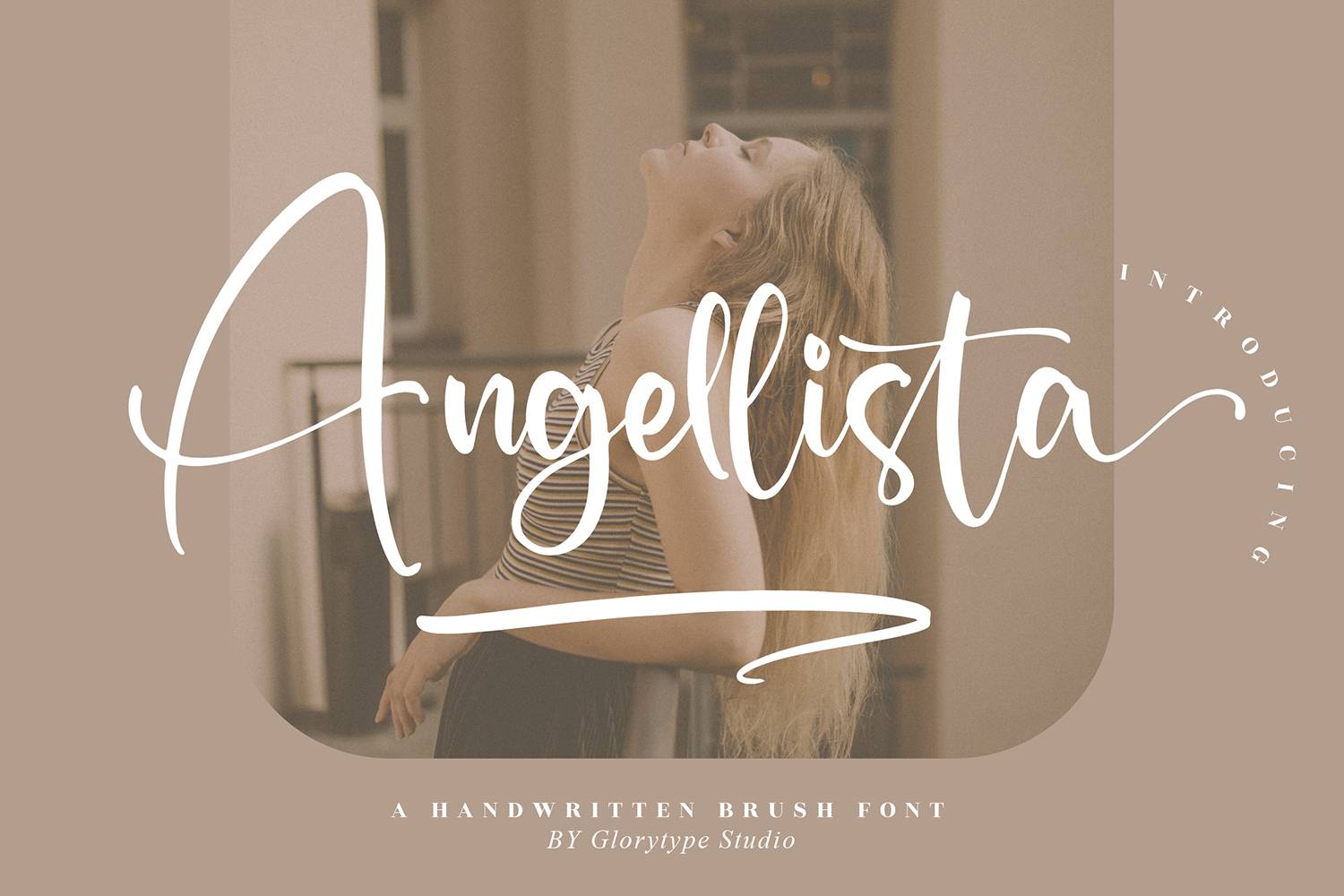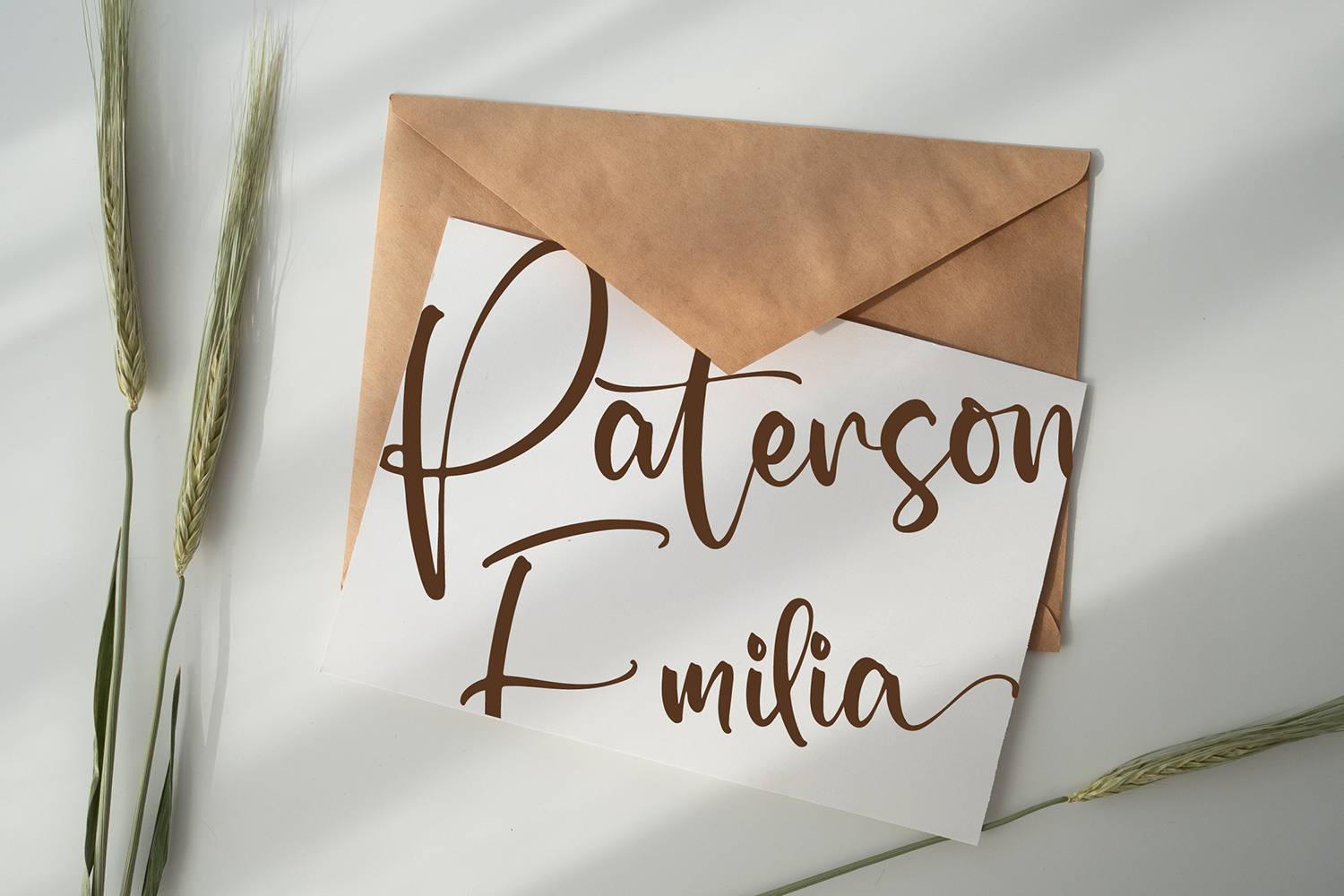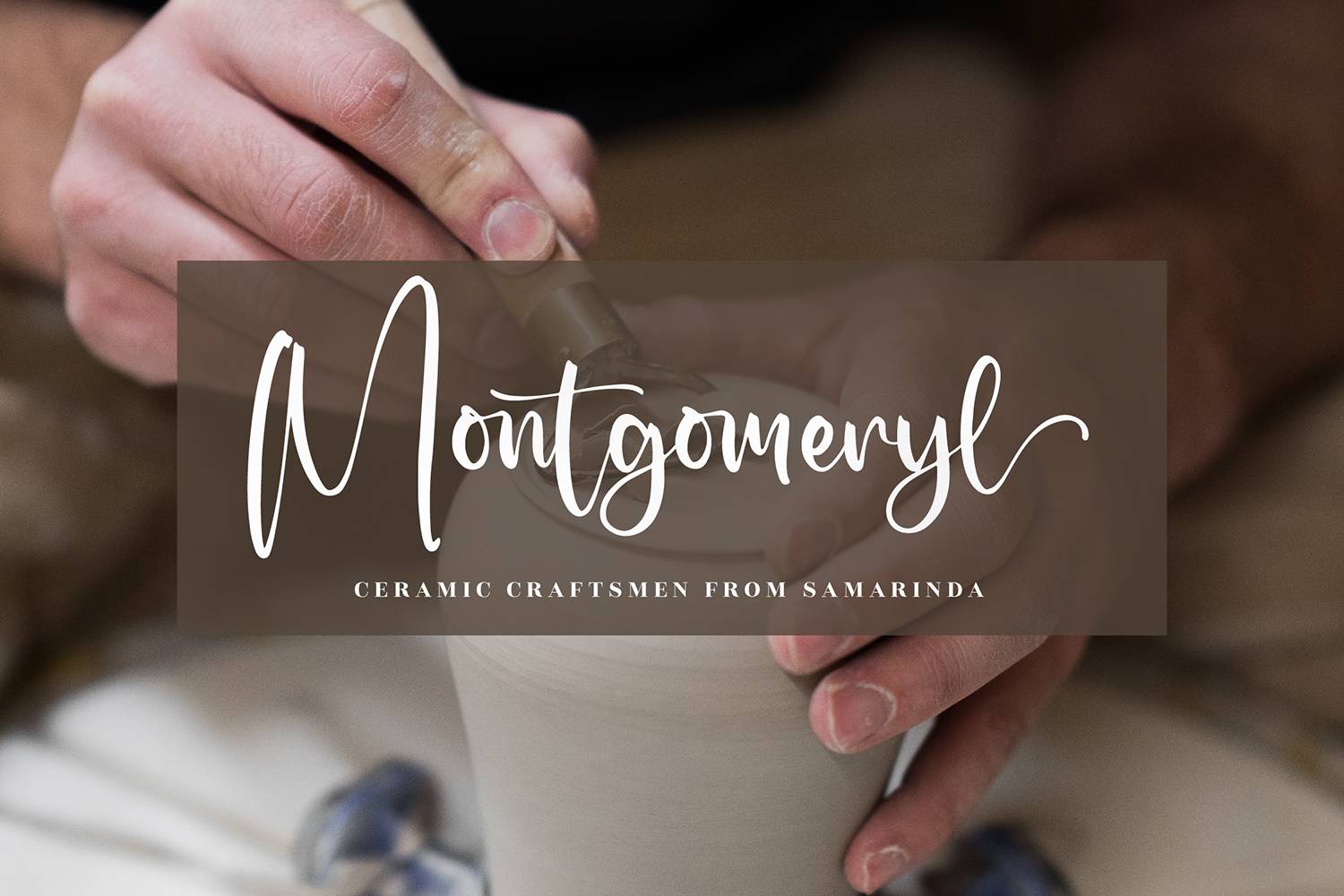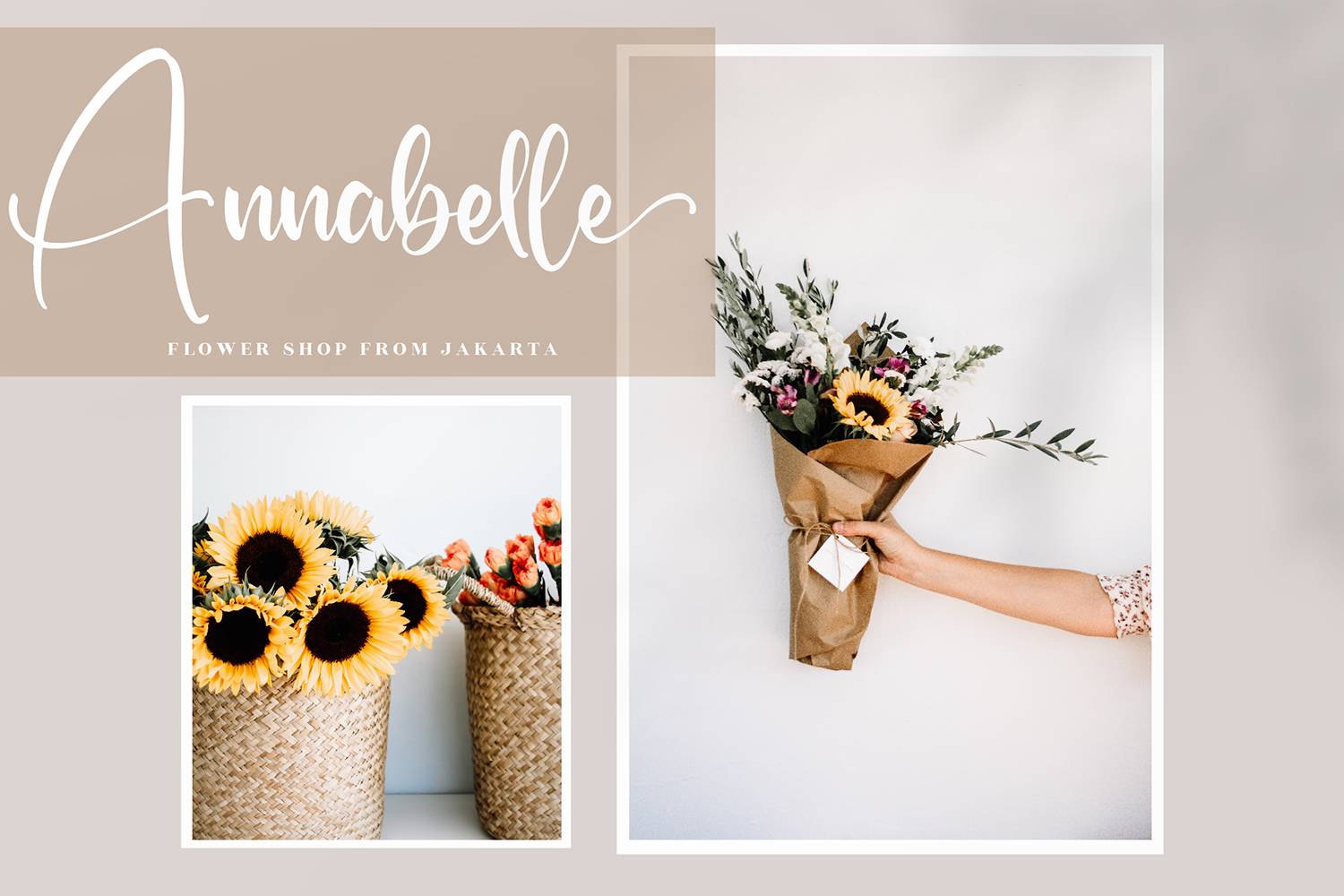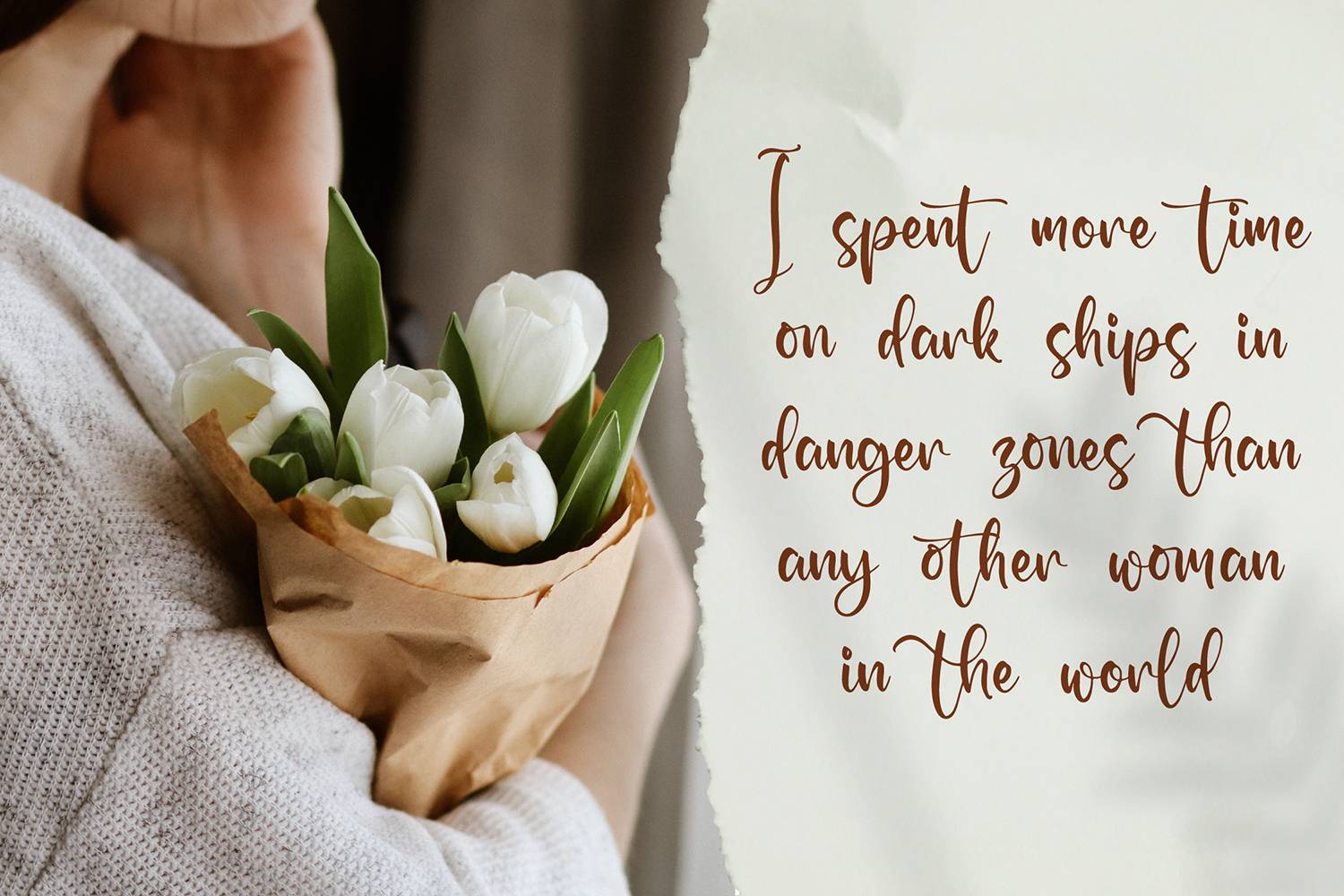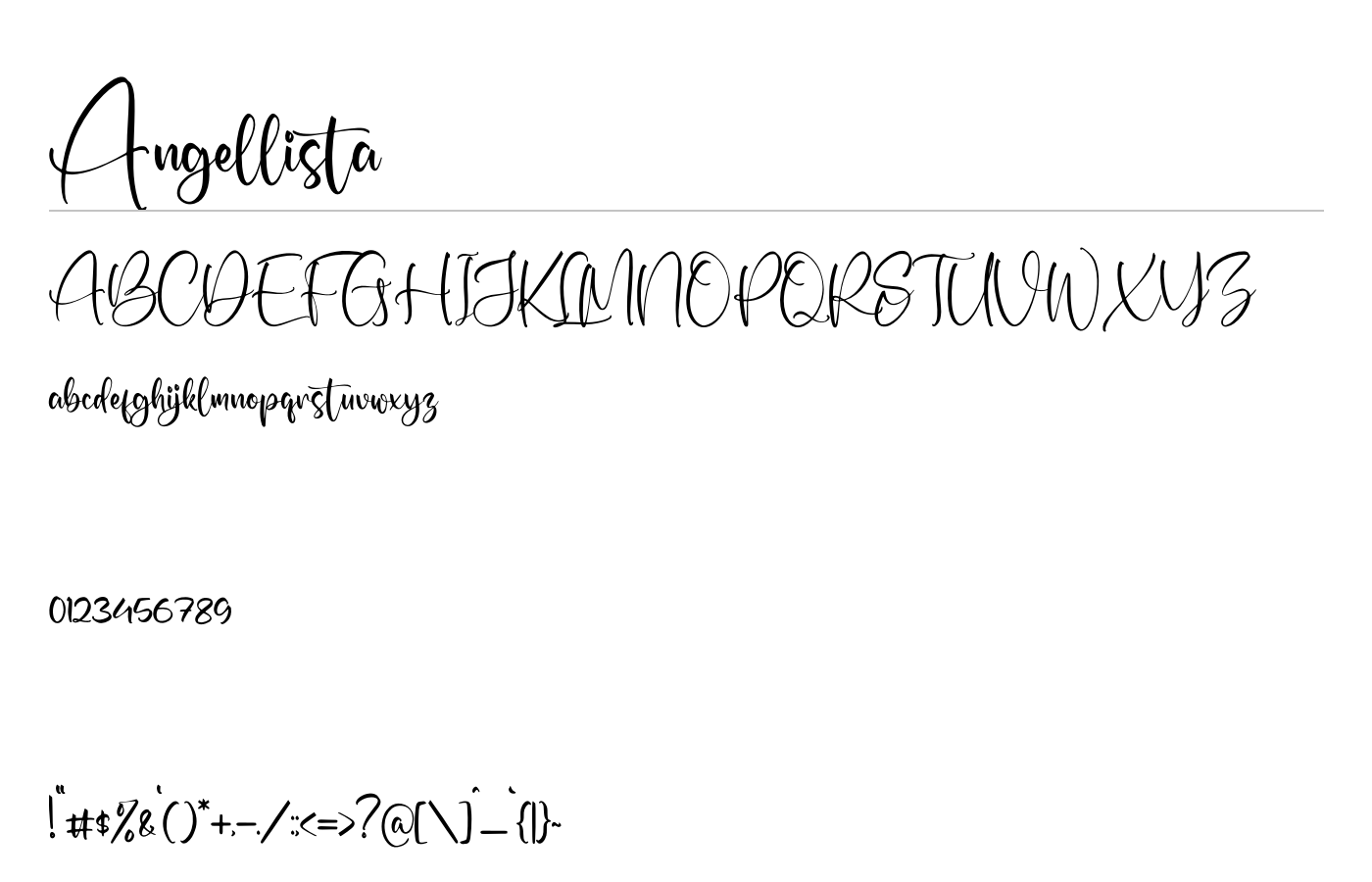
Angellista is a delicate script font with a playful and elegant feel, featuring flowing, hand-drawn letterforms that combine thin strokes with smooth curves. Its casual yet refined style makes it perfect for branding, invitations, and creative projects that want a personal, stylish touch. This font works especially well in designs seeking a warm, approachable vibe without sacrificing sophistication.
Angellista Font
About Angellista Font